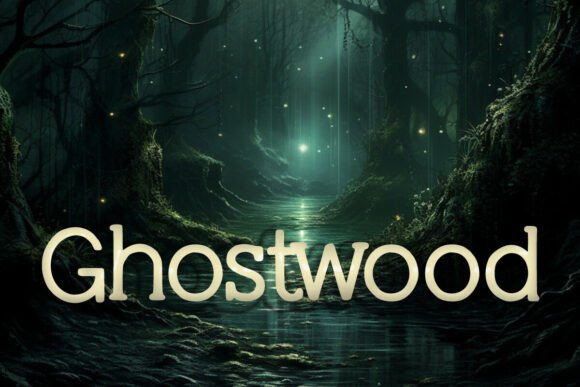
Unleash the Quirk: Discover the Captivating Power of Ghostwood Font
Are you tired of using the same old fonts for your design projects? Look no further than Ghostwood font, a dynamic and quirky typeface that’s sure to elevate your creations. With its unique allure and incredible versatility, Ghostwood font is the perfect choice for designers, crafters, and marketers looking to add a distinctive edge to their work.
Transform Your Designs with Ghostwood Font
Ghostwood font is more than just a font – it’s a design companion that can transform your projects into standout pieces. Whether you’re creating t-shirts, stickers, posters, or social media content, Ghostwood font injects a quirky personality that sets your work apart from the rest. Its unique charm makes it ideal for configured SVG files, magazine layouts, greeting cards, and more.
Perfect for Cricut Projects
Cricut enthusiasts, rejoice! Ghostwood font is the perfect companion for your cutting machine. With its seamless compatibility with Cricut Design Space, you can easily import and use Ghostwood font to create custom vinyl decals, iron-on designs, and paper crafts. Add a touch of whimsy to your projects and make them truly unforgettable.
Elevate Your Brand Identity
Ghostwood font is not just for crafters; it’s also an excellent choice for businesses looking to create a distinctive brand identity. Use Ghostwood font to add a touch of personality to your logo, packaging, or marketing materials. Its quirky charm will help your brand stand out in a crowded market and leave a lasting impression on your customers.
Ideal for Various Design Applications
Ghostwood font’s versatility knows no bounds. Here are some design applications where Ghostwood font truly shines:
- T-shirts and stickers: Create eye-catching apparel and accessories that demand attention.
- Posters and flyers: Add a touch of quirkiness to your promotional materials and make them hard to forget.
- Magazine layouts: Inject personality into your editorial designs and make your content more engaging.
- Greeting cards: Create heartfelt and unique cards that showcase your creativity.
- Social media content: Make your social media posts stand out with Ghostwood font’s distinctive charm.
Why Choose Ghostwood Font?
So, what makes Ghostwood font so special? Here are just a few reasons why designers and crafters love Ghostwood font:
- Unique style: Ghostwood font boasts a one-of-a-kind design that’s sure to turn heads.
- Versatility: Use Ghostwood font across various design applications, from digital projects to print materials.
- Impactful: Ghostwood font adds an extra layer of personality to your designs, making them more engaging and memorable.